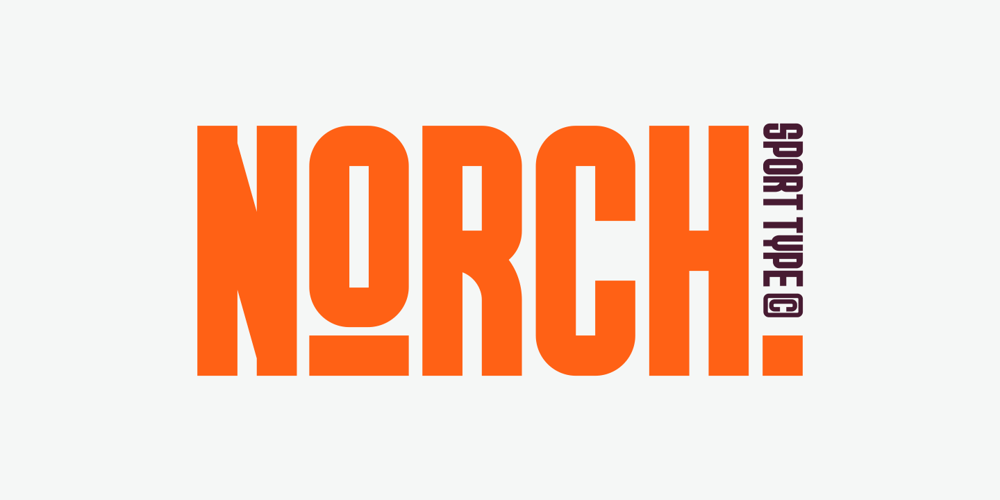
GR Norch
GR Norch font
GR Norch Font Family was designed by Risman Ginarwan and published by Garisman Studio. GR Norch contains 1 styles and family package options. GR Norch – Sports Display FontNorch is a very cool font for a design with sports themes: football, basketball, bowling, athletics, badminton, and others. With a strong display and clean nodes make a text in a design become more character and great. Inspired by the current trend of sports texts with a very modern and cool geometric style.It is formed from very carefully sports display font. Norch has 400+ glyphs. Suitable for any graphic design projects, prints, logos, posters, t-shirts, packaging and applicable for some types of graphic design. Norch is compatible with any software without any pain, especially in sports design.